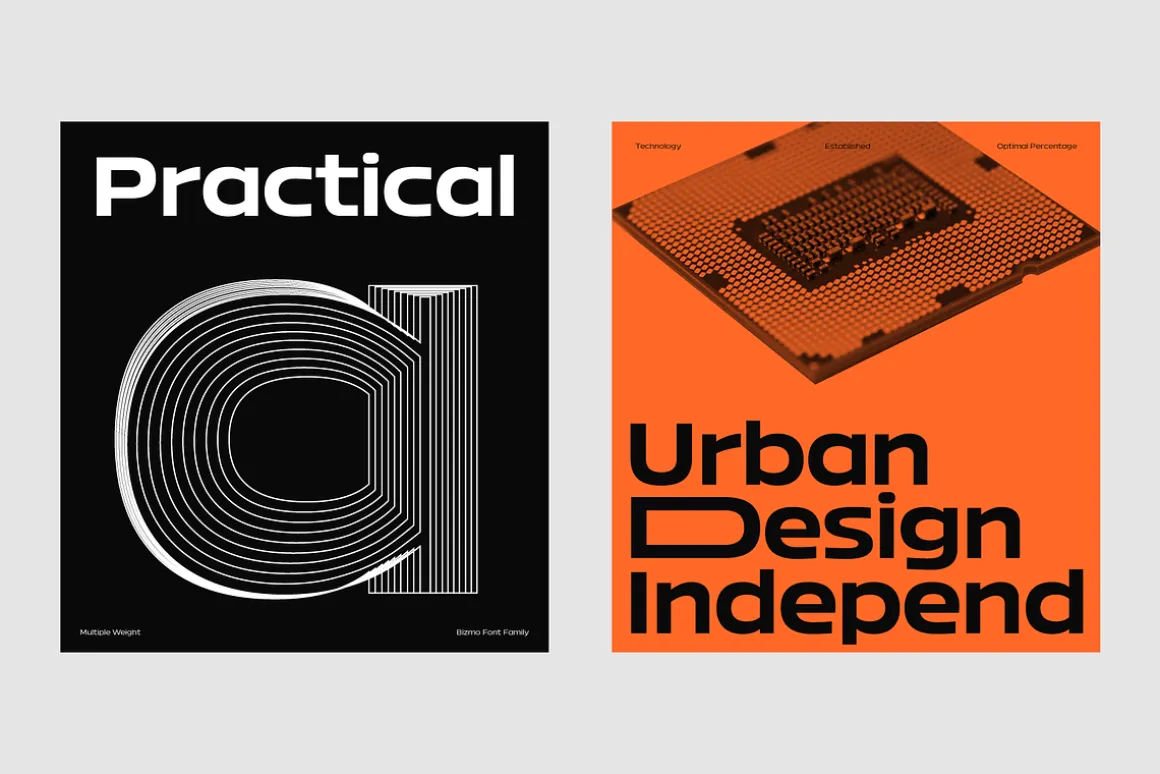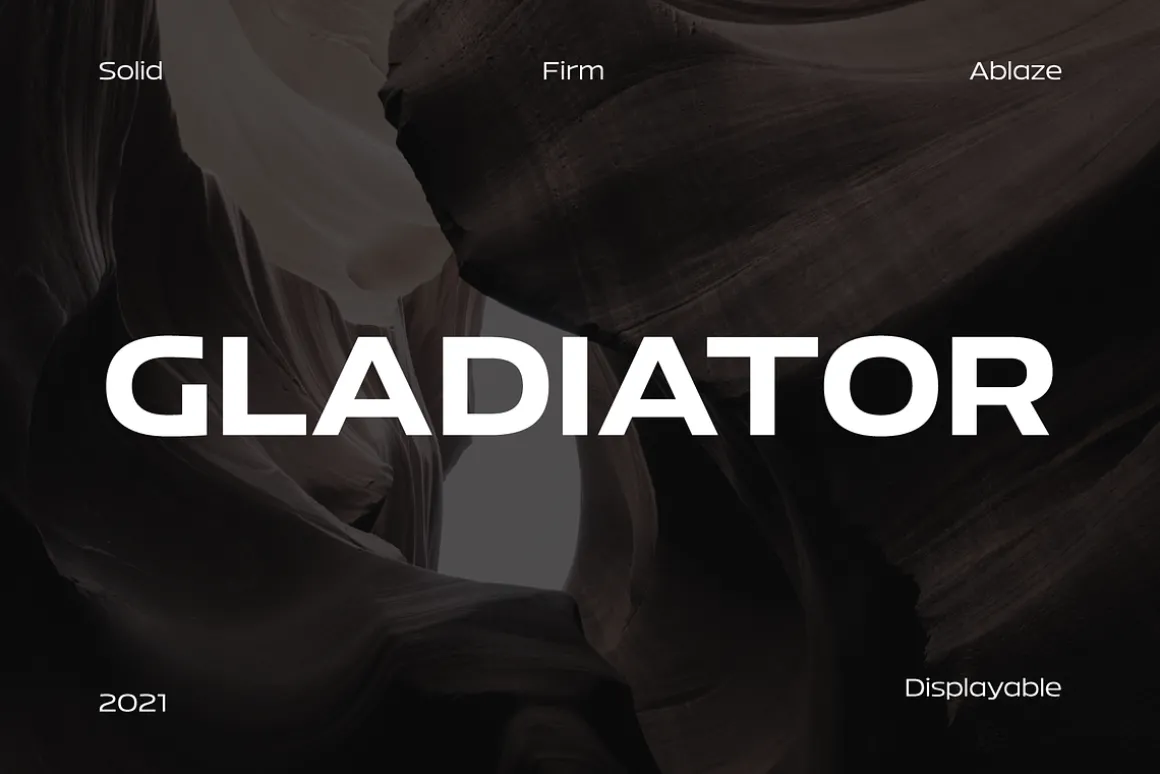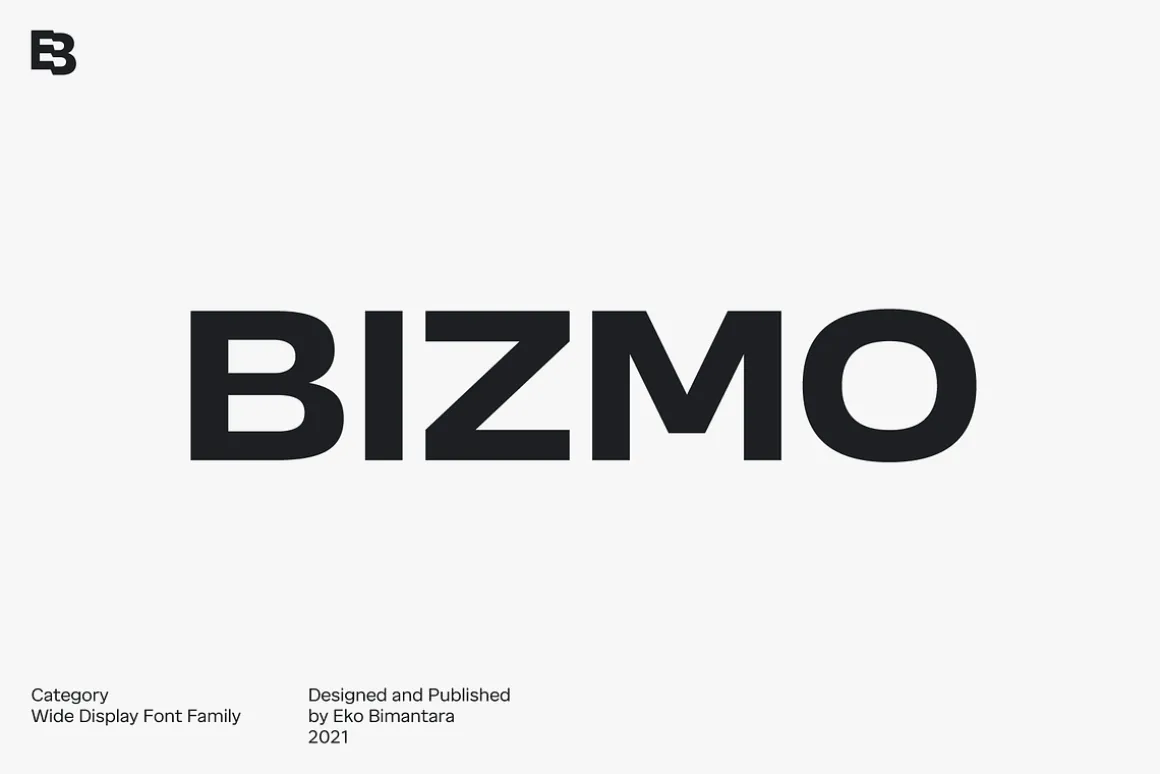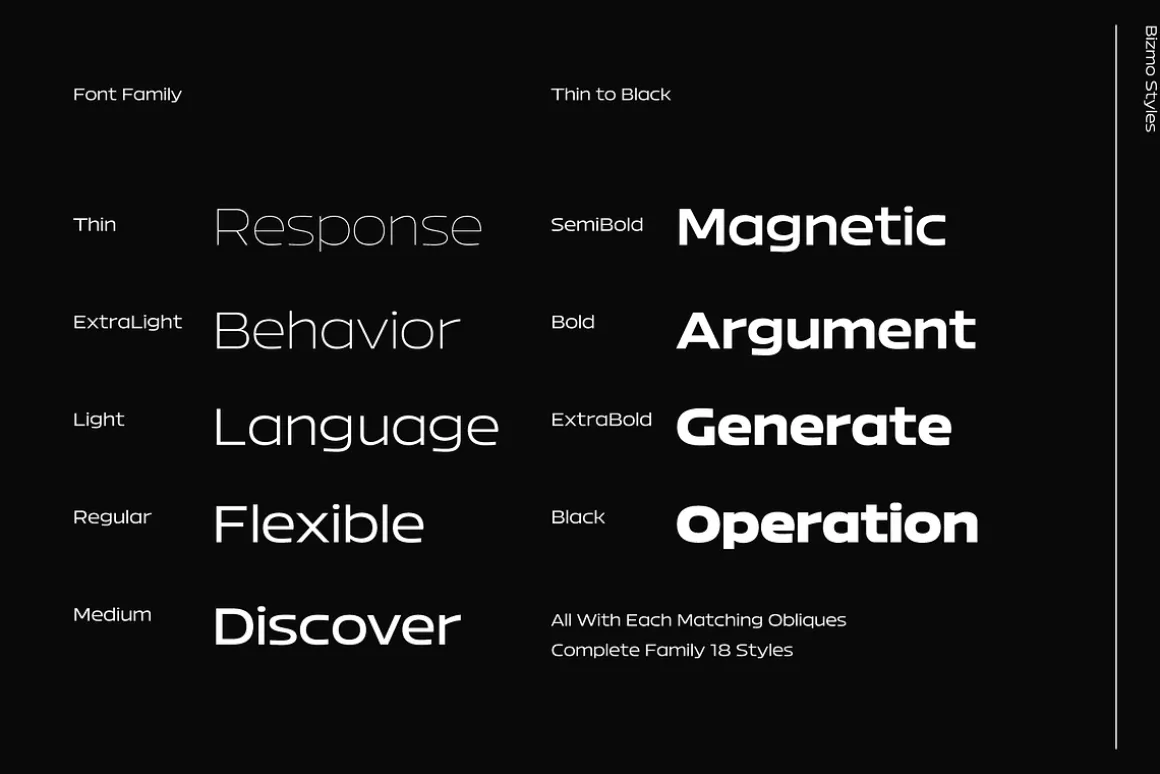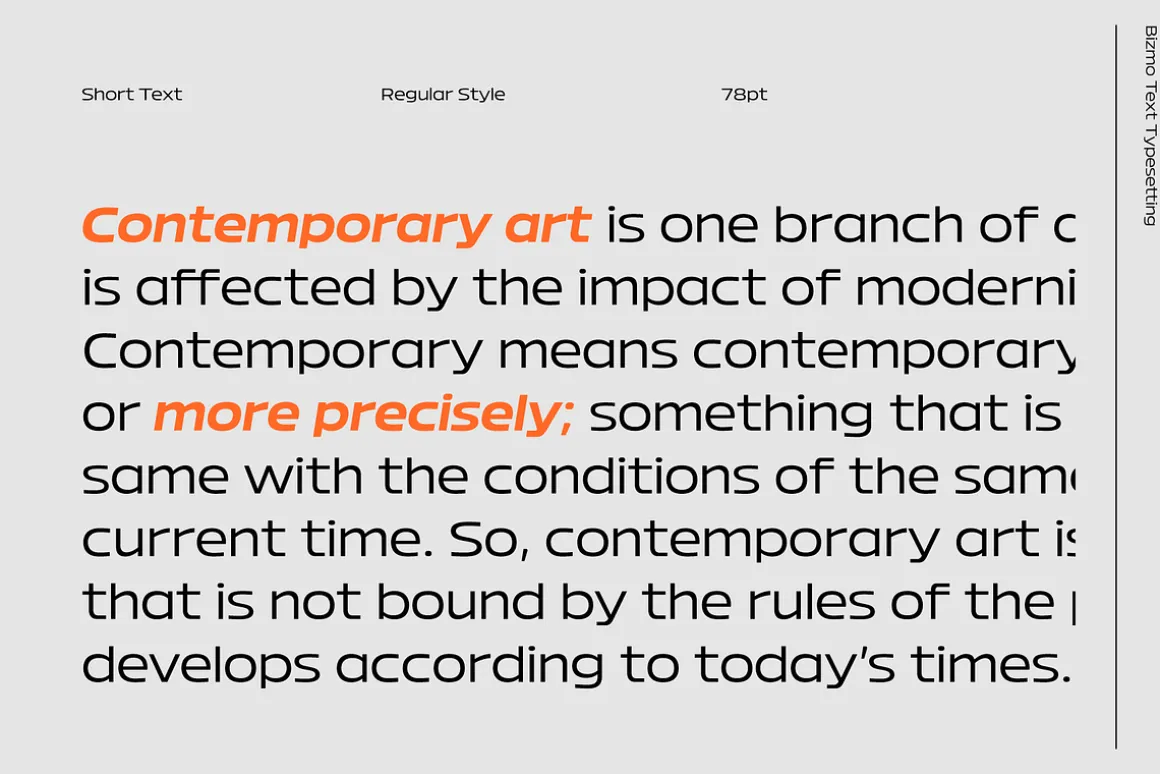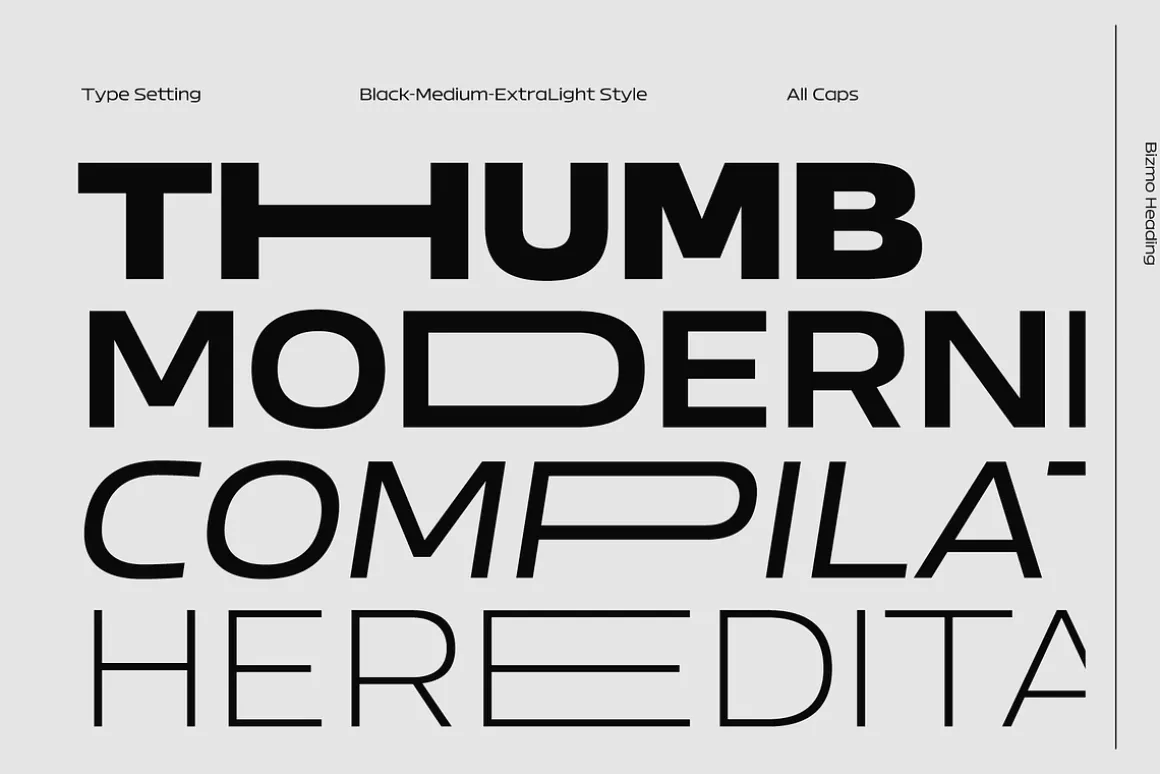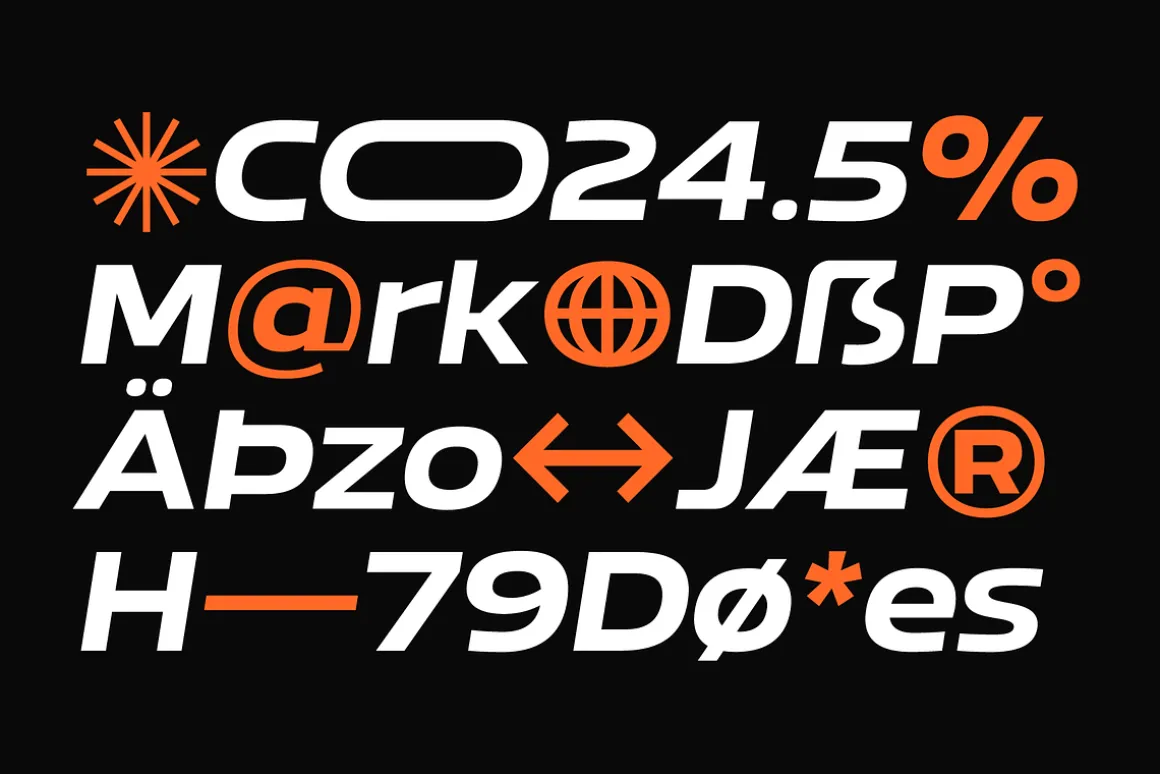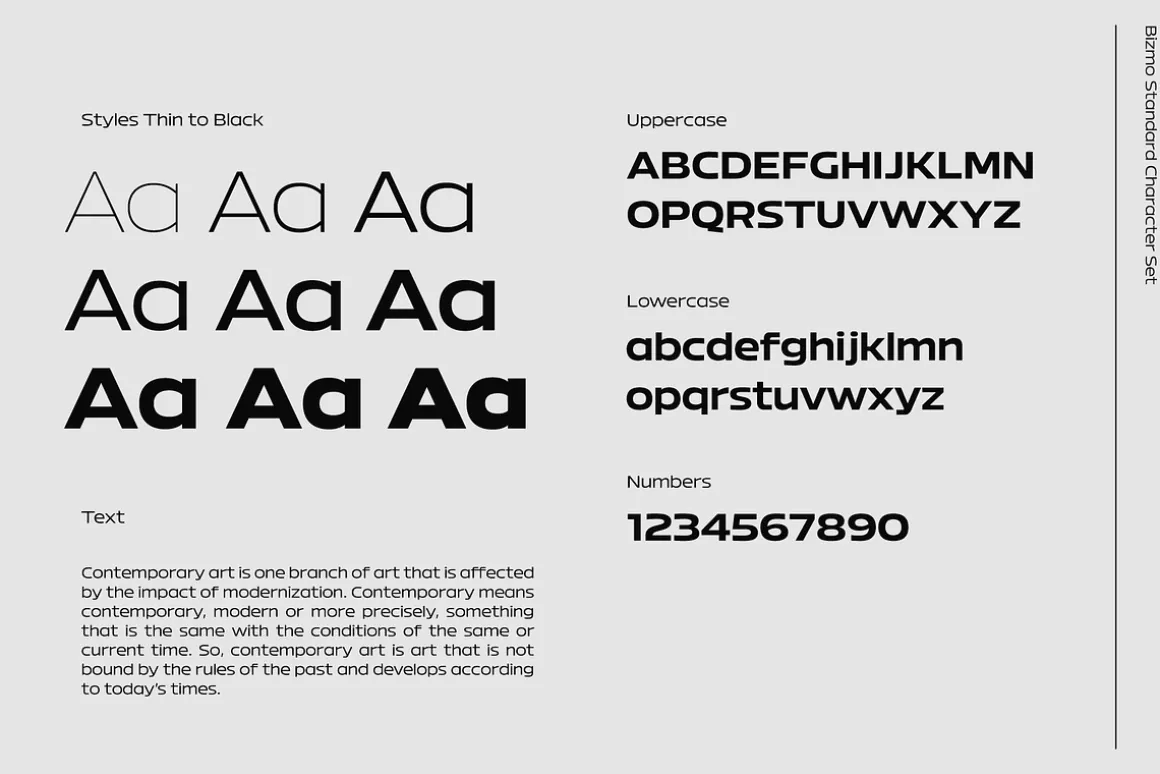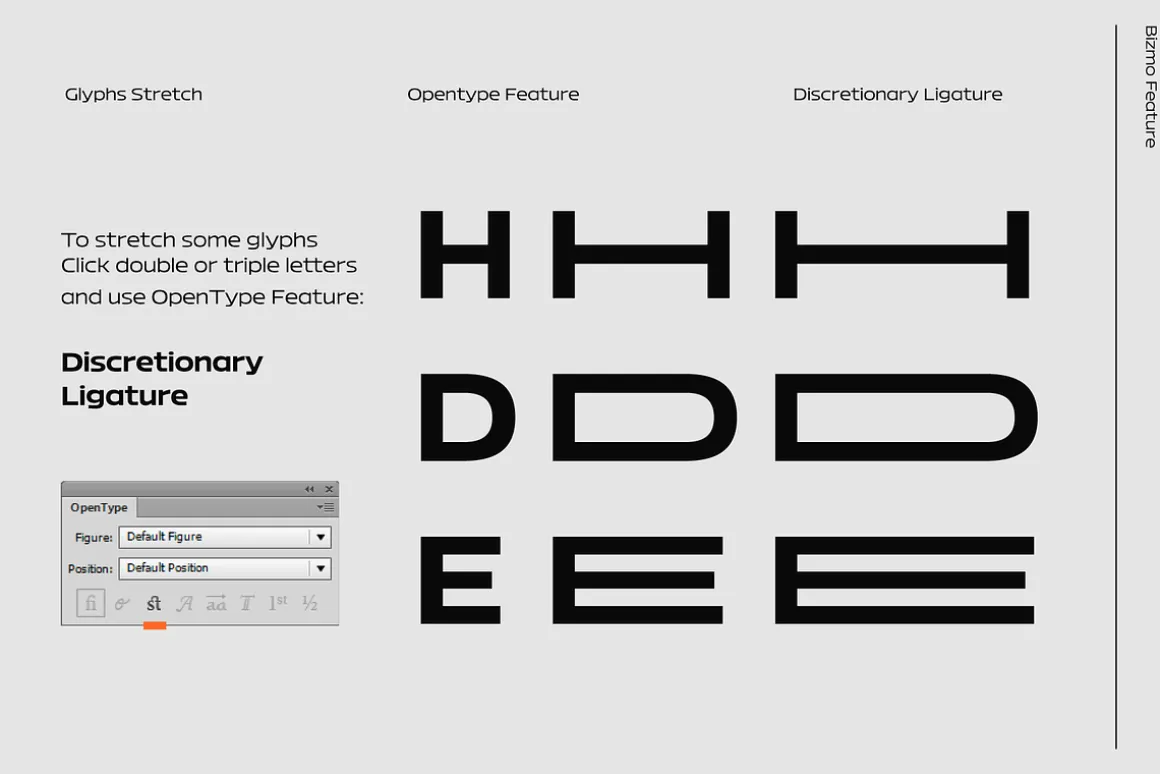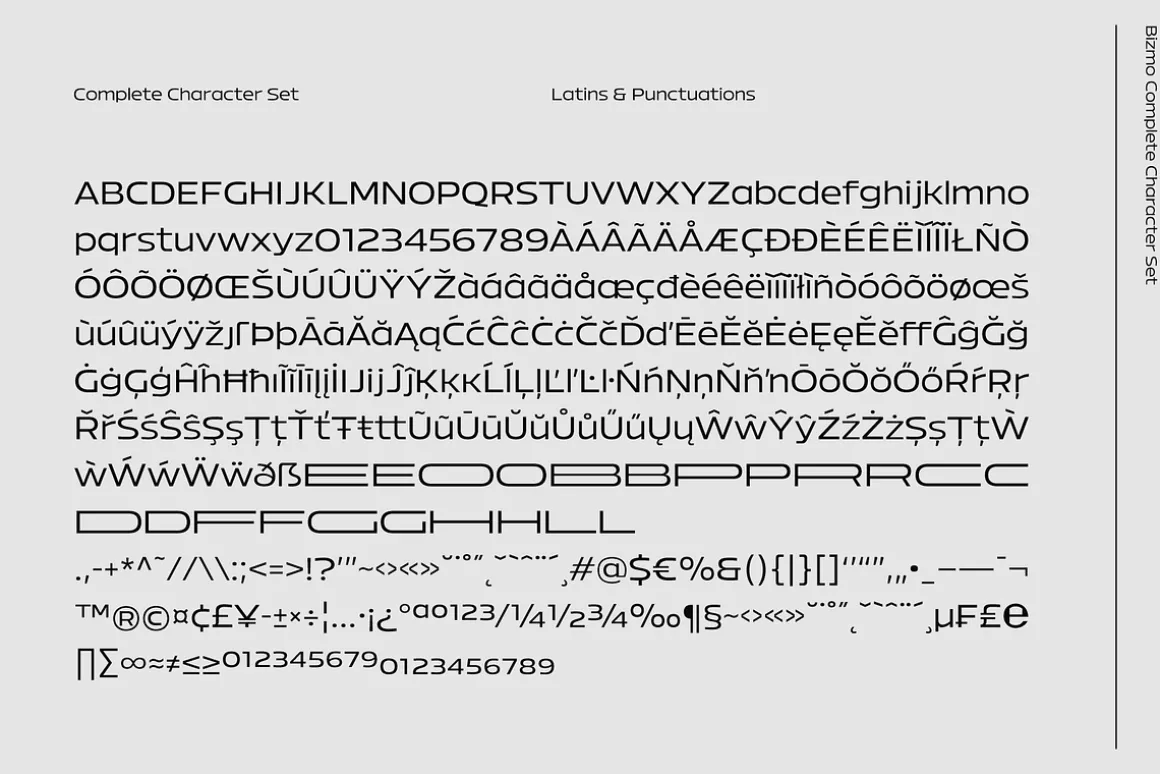
Bizmo font family is meant for display, it’s characteristic is in it’s wide letterform which is suitable for use in large or long spaces.
Bizmo consist of 9 weight with each matching obliques. Several uppercase glyphs can be stretch wider by double or triple typing the letter and using discretionary ligature. It’s contain 420 glyphs which covered broad latin languages.